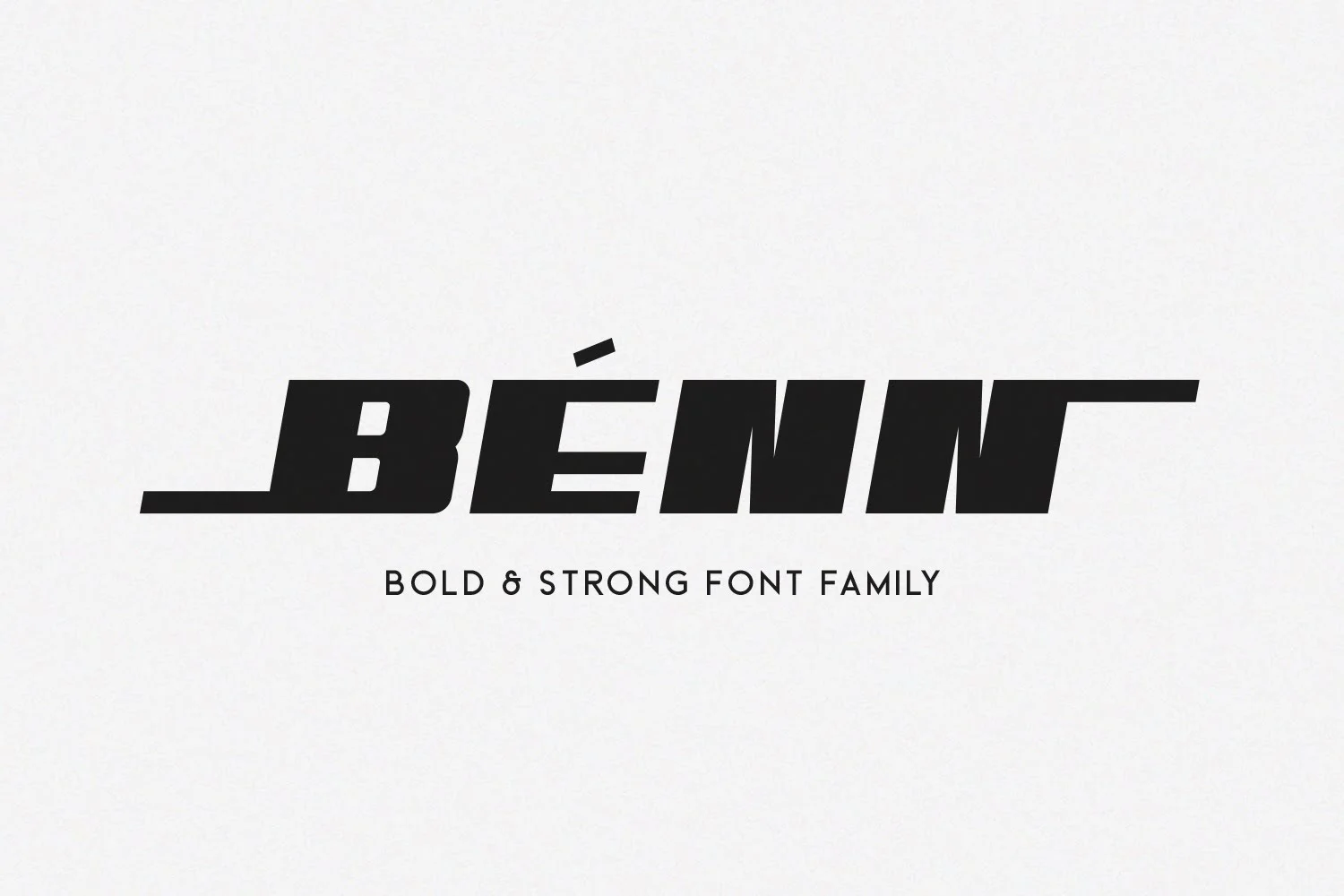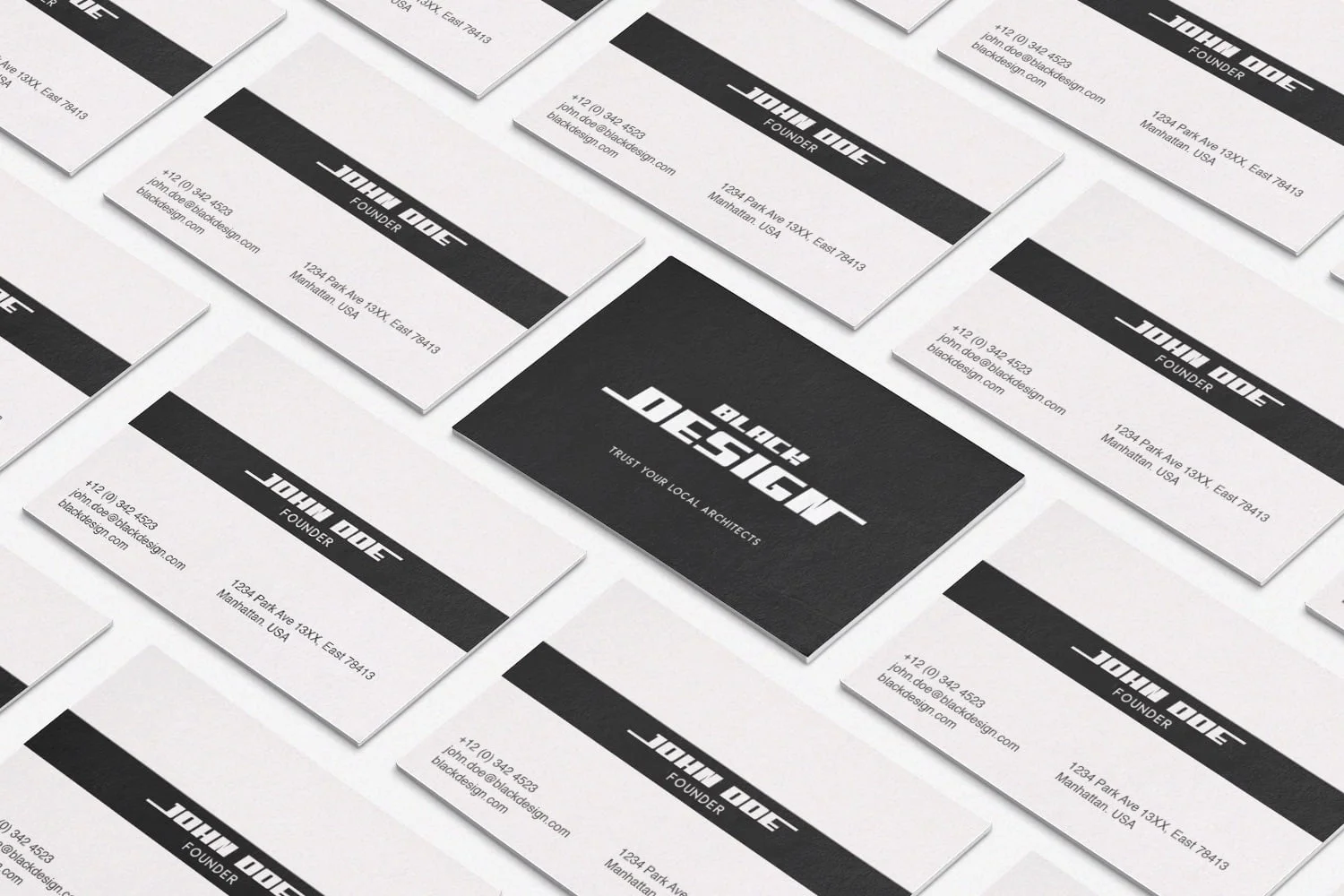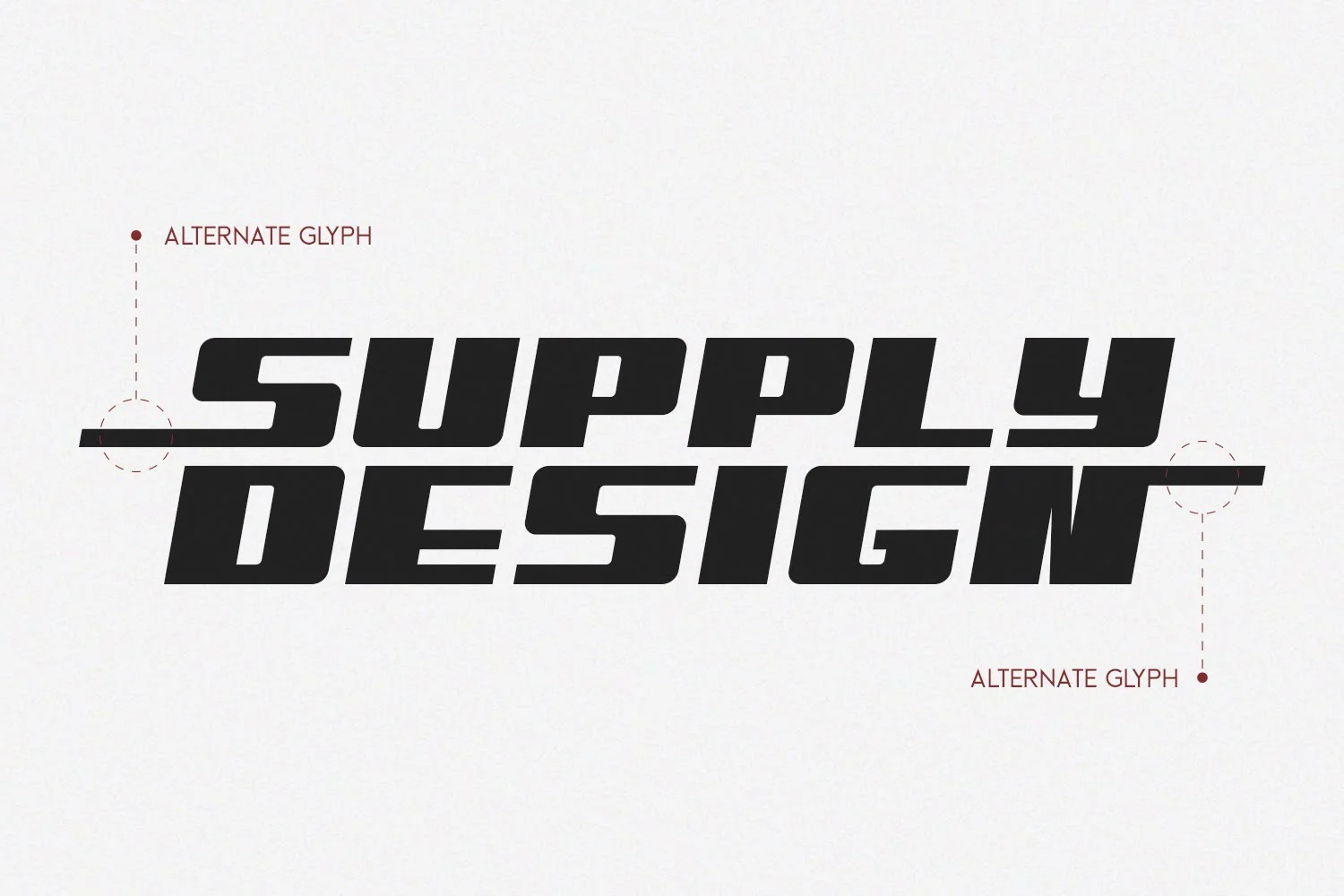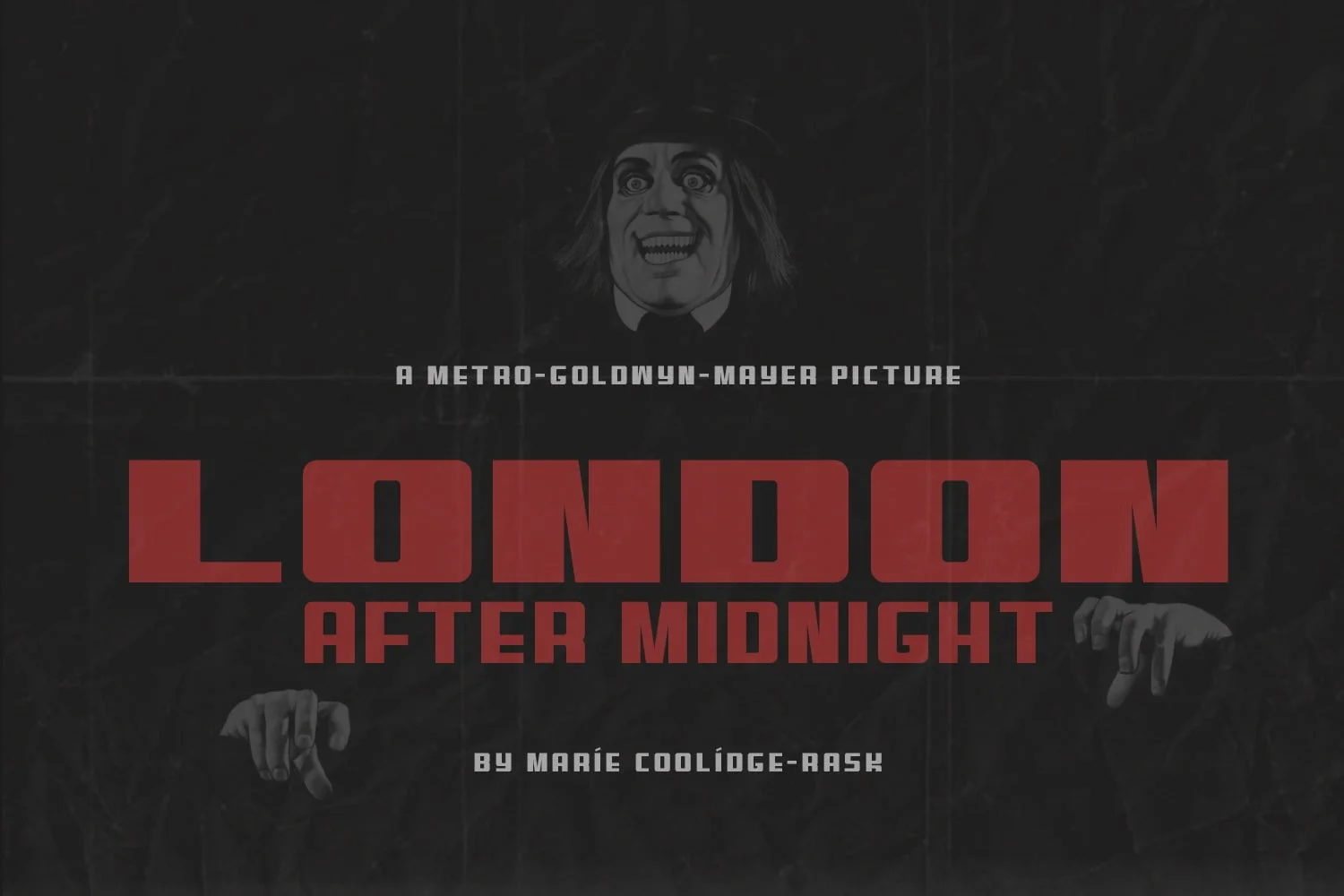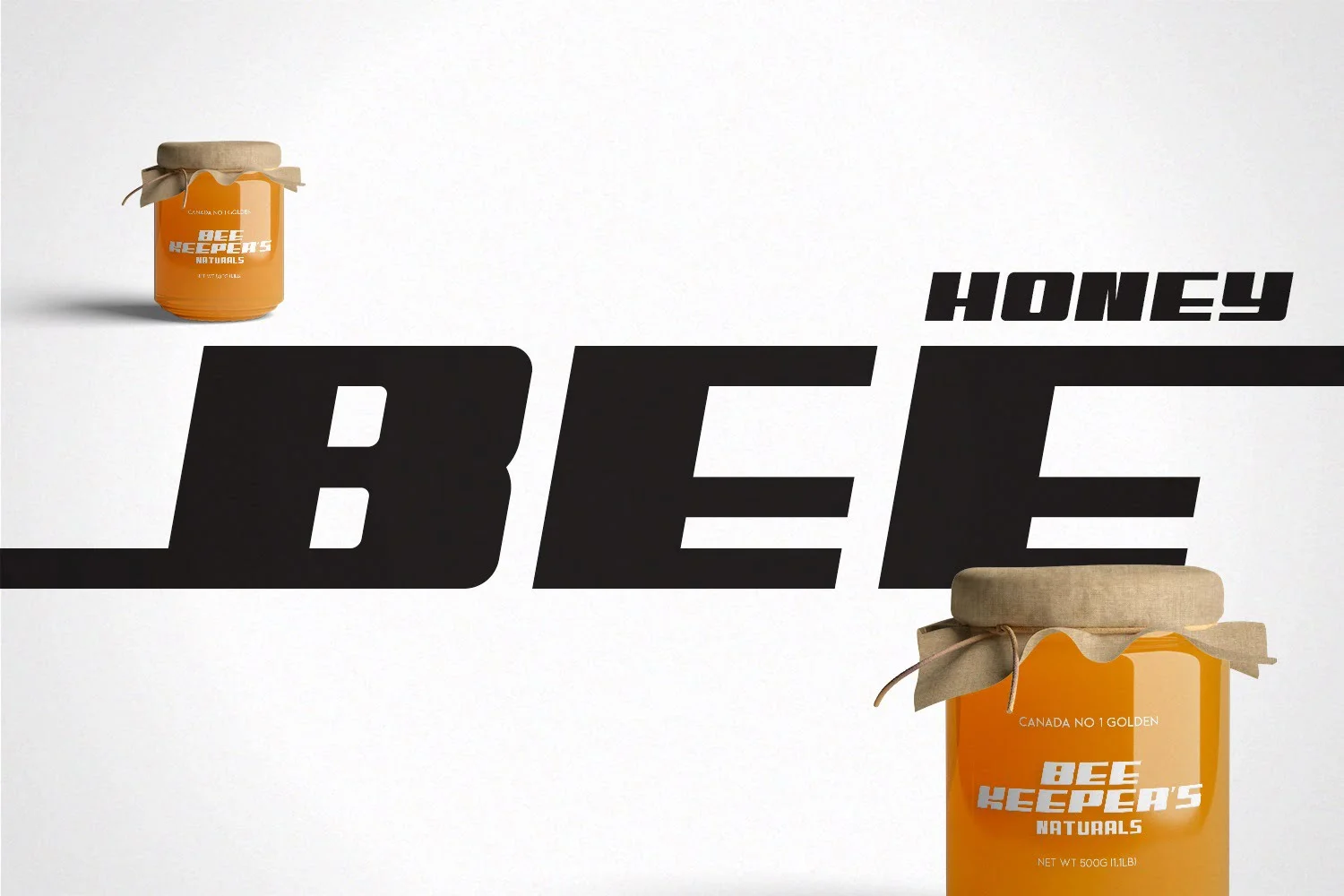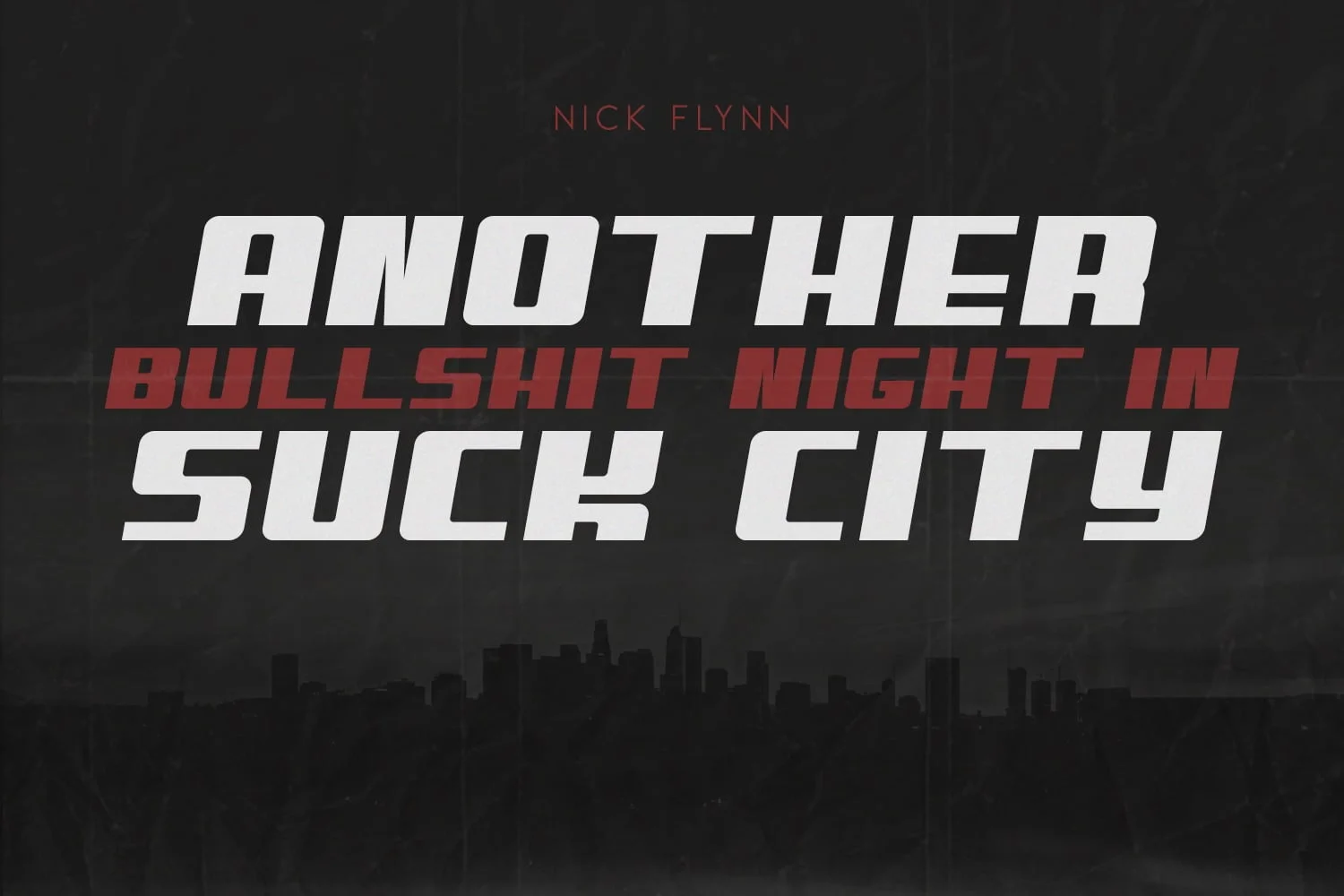
This is a stout, and bold font family. Benn is inspired by a car shape and its sturdy structure means it will stand up to any design venture you throw at it. We love the fluid touches that give Benn its smooth edges, but that balanced with solid lines that make this an uncompromisingly strong font family.
• 4 Weights (Light, Regular, Bold, Heavy )
• 2 Styles (Regular and Italic)
• Basic Latin A-Z and a-z
• Numerals & Punctuation
• Alternate Glyphs
• Multilingual Support for ä ö ü Ä Ö Ü …
Benn Sport Font